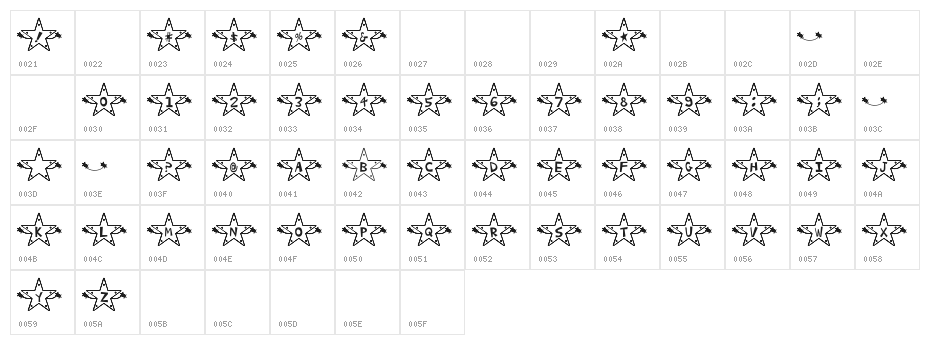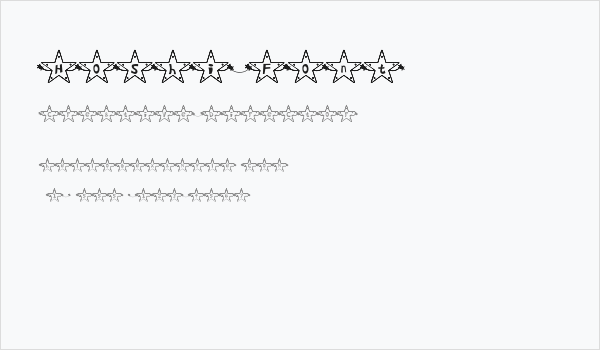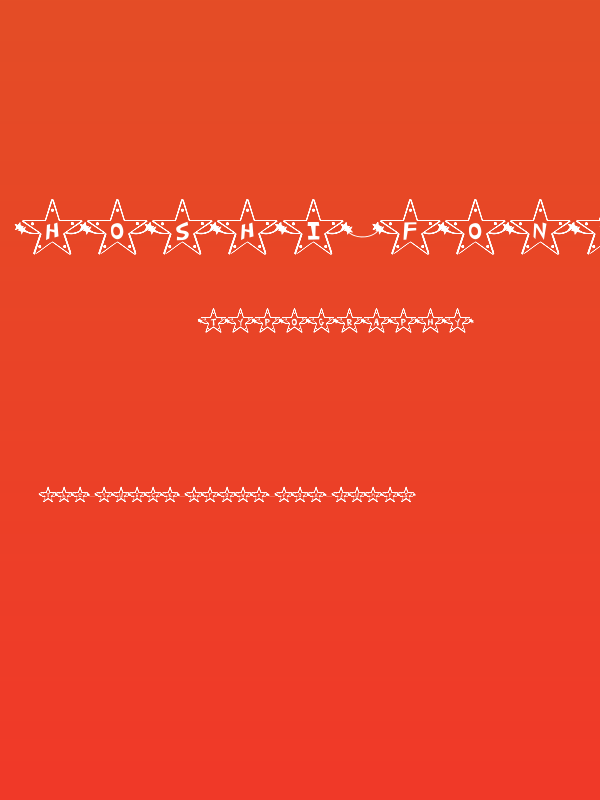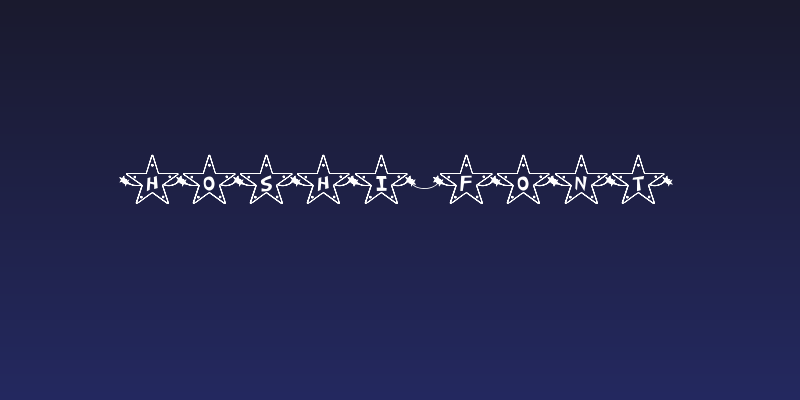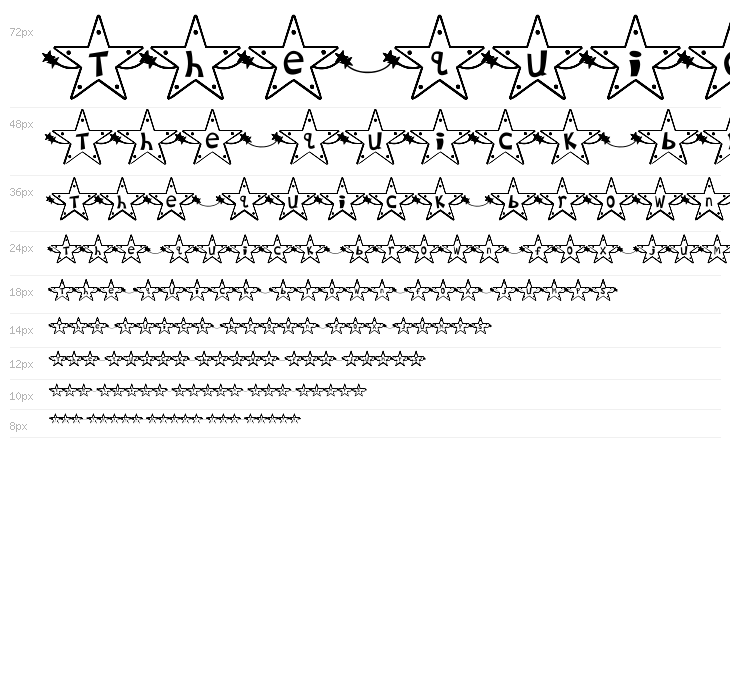
Hoshi Font Font
Hoshi Font Description
This playful and decorative font features characters enclosed within star shapes, giving it a whimsical and unique appearance. Each letter and number is centered inside a five-pointed star, with additional decorative elements like small stars and lines enhancing the overall design. The font maintains a consistent style across uppercase, lowercase, and numeric characters, making it visually cohesive. Its distinctive look is ideal for projects that require a fun and engaging aesthetic, such as children's materials, party invitations, or festive branding. The font's design ensures that each character is easily recognizable while adding a touch of creativity and flair.
| Proposed Projects | Ideal for children's books, party invitations, festive branding, and creative posters. |